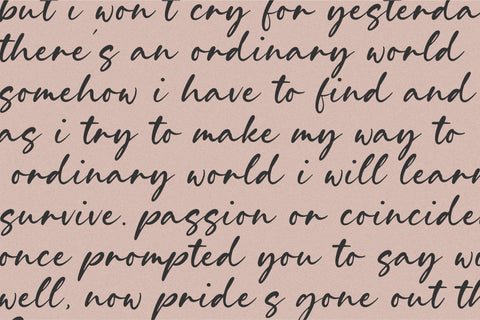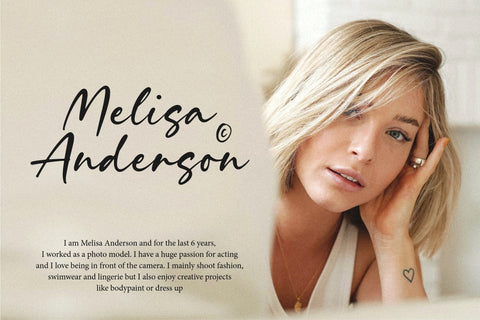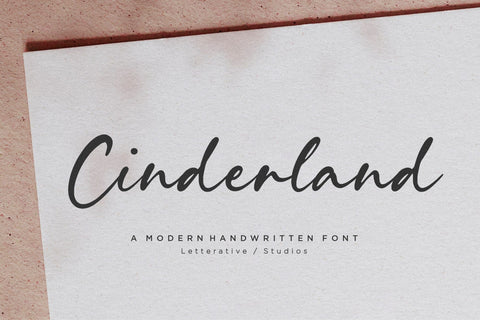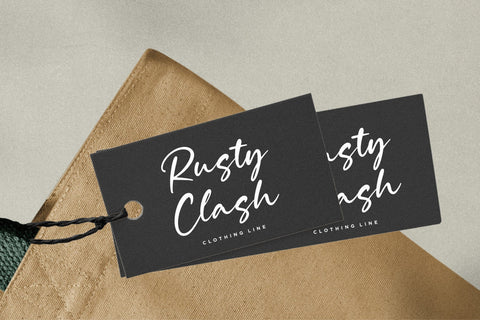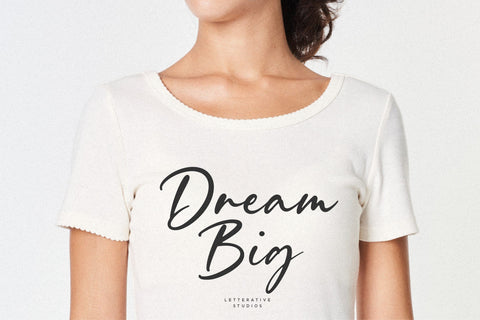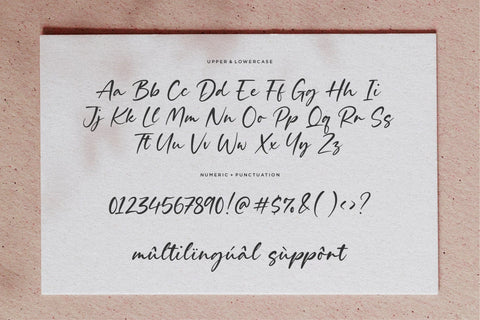
Cinderland Modern Handwritten Font
Introducing by Letterative Studio : Cinderland Font
Cinderland is a Modern Handwritten Font
Cinderland is a Modern handwritten font. Whether you’re using it for crafts, digital design, presentations, or making greeting cards, this font has the potential to become your favorite go-to font, no matter the occasion!